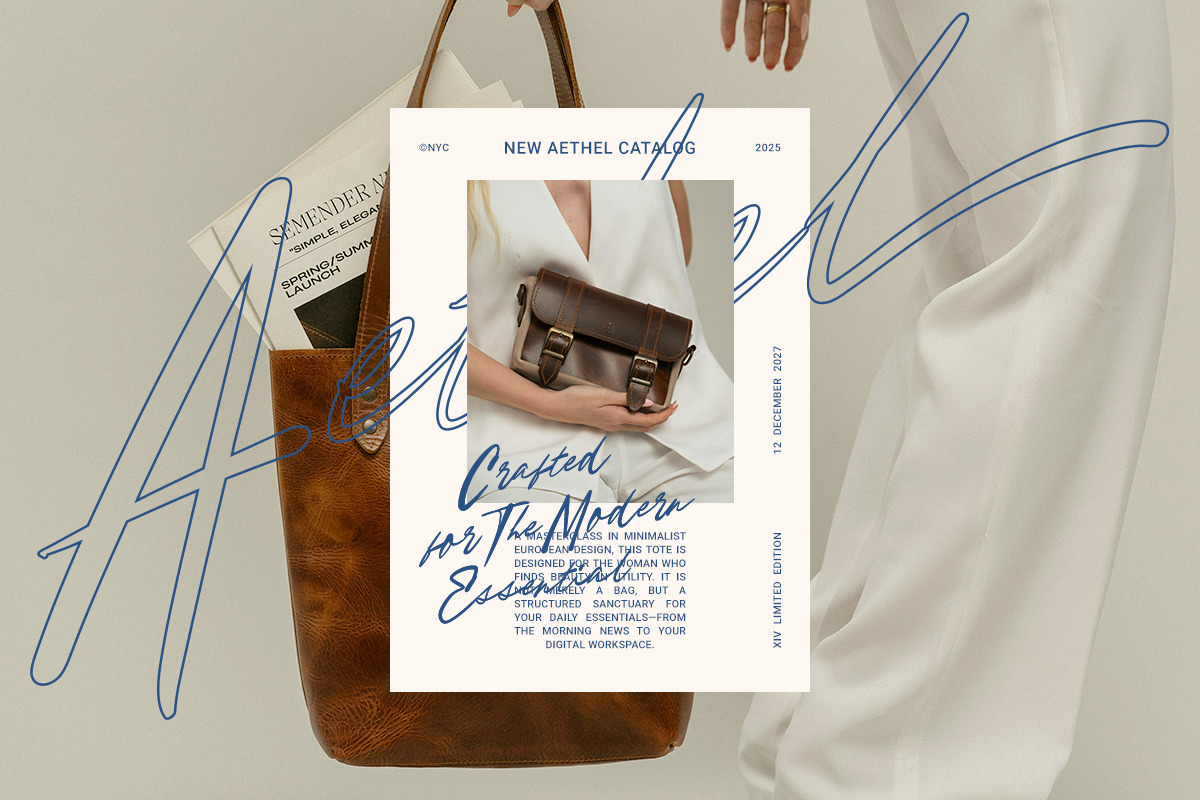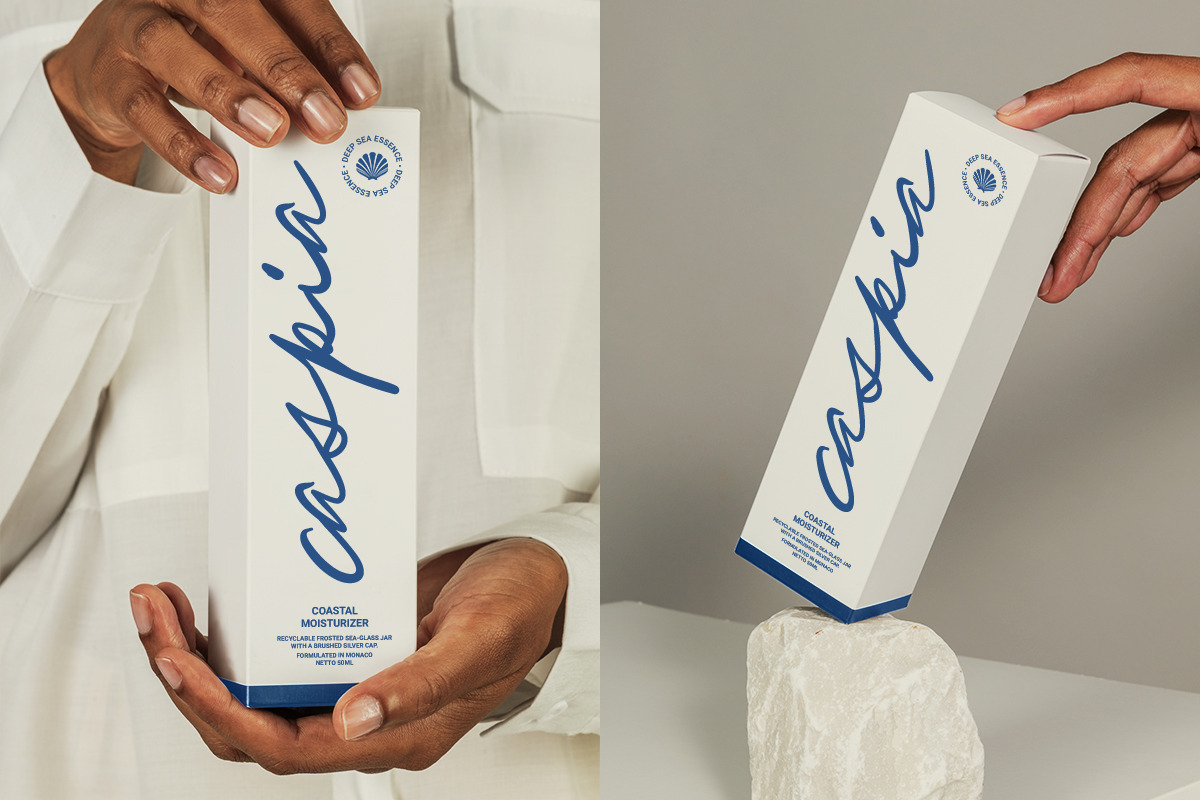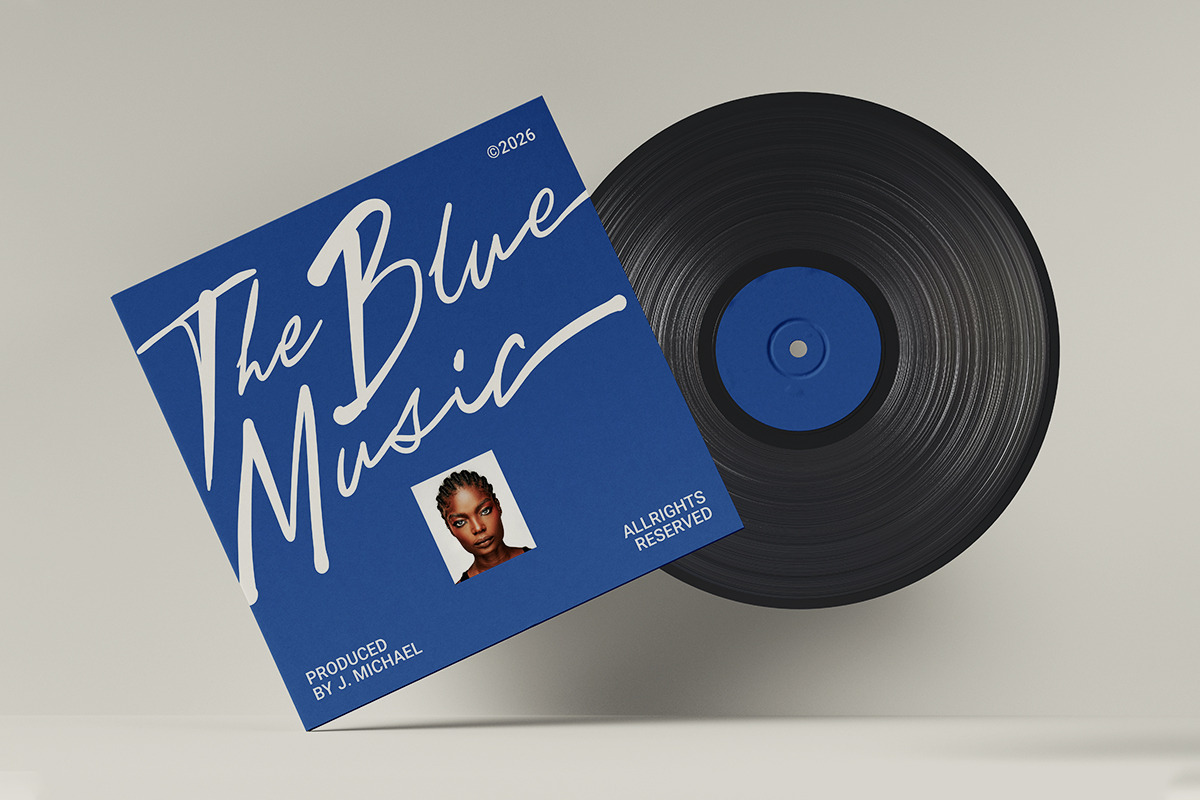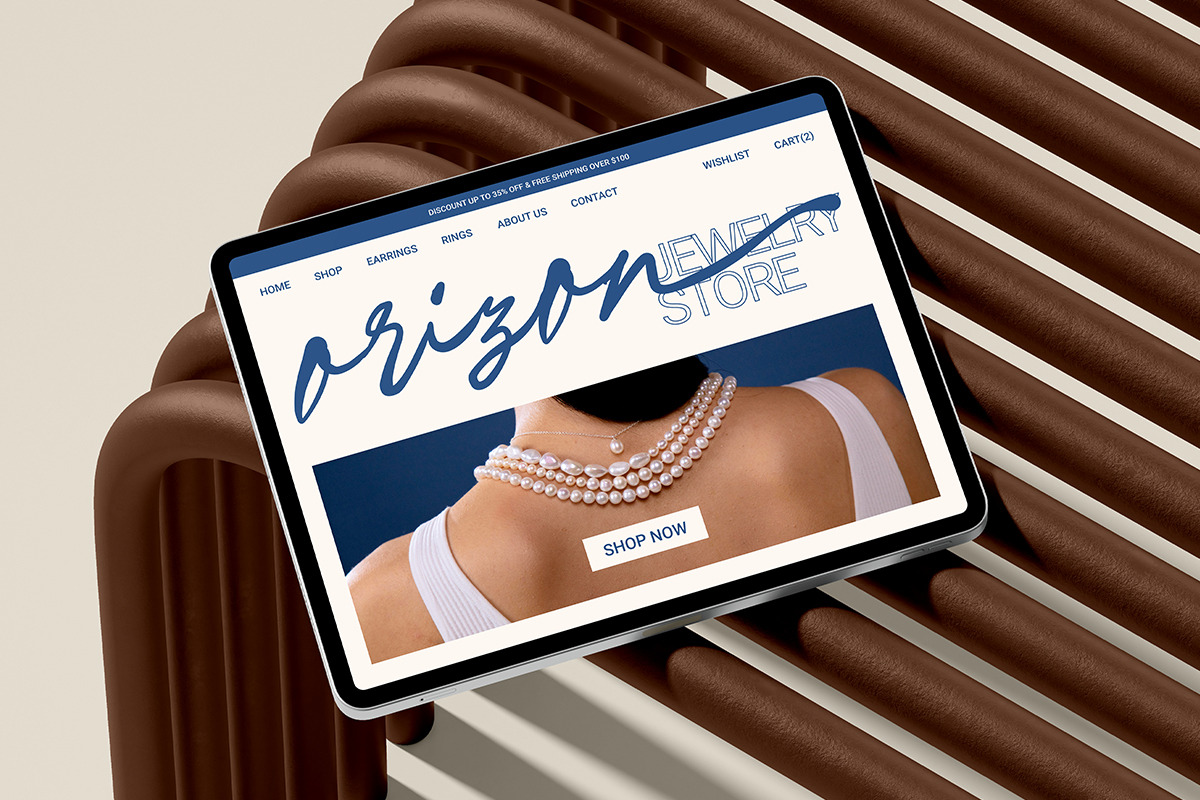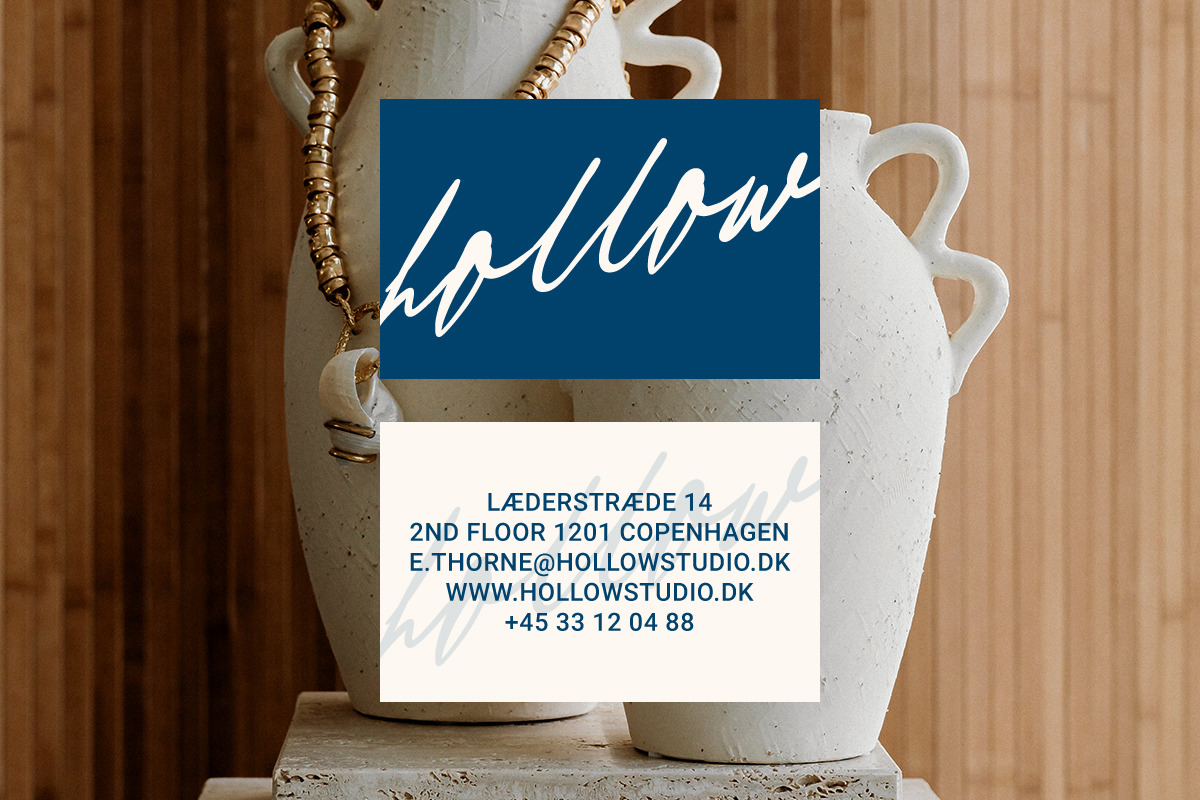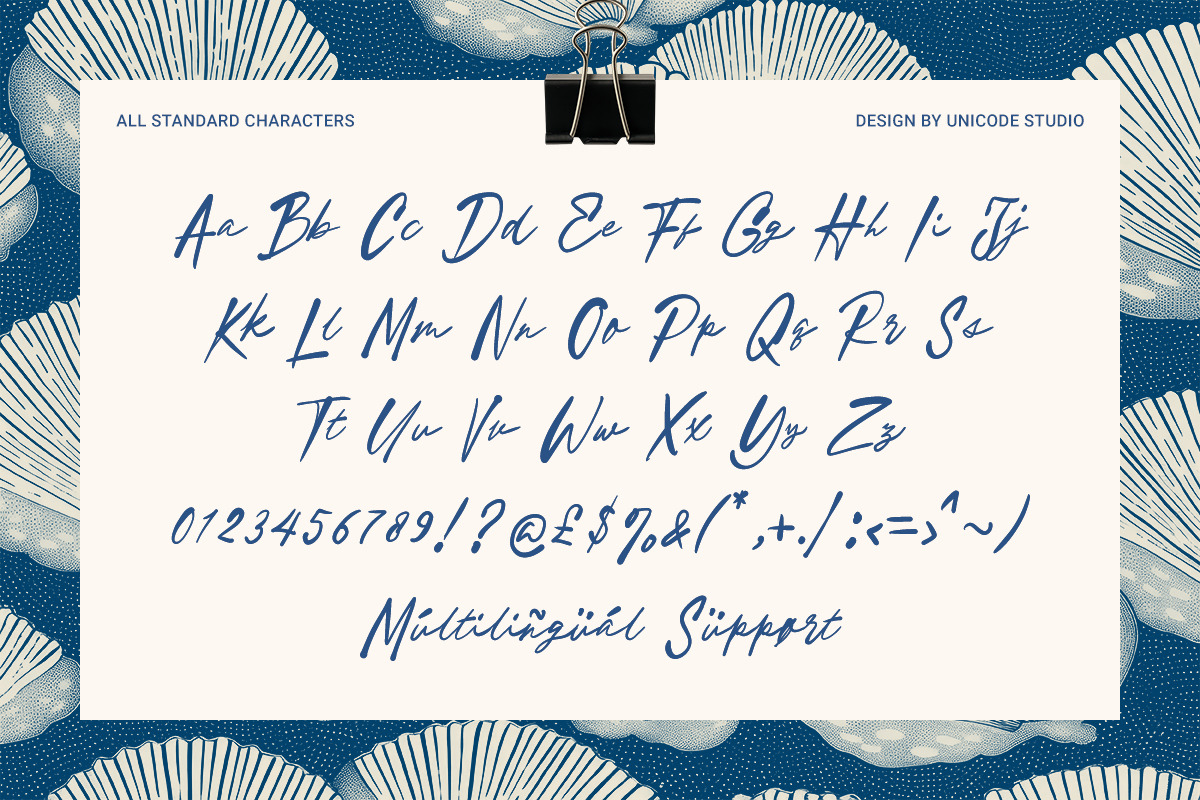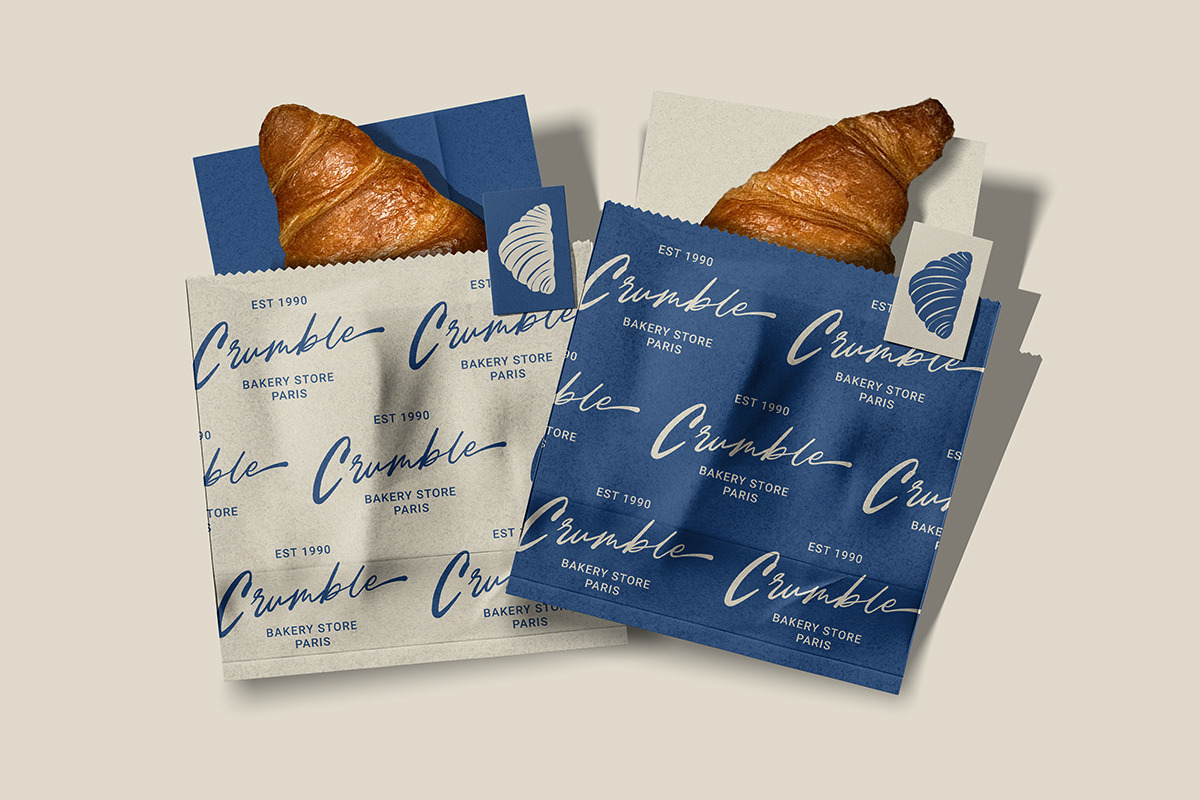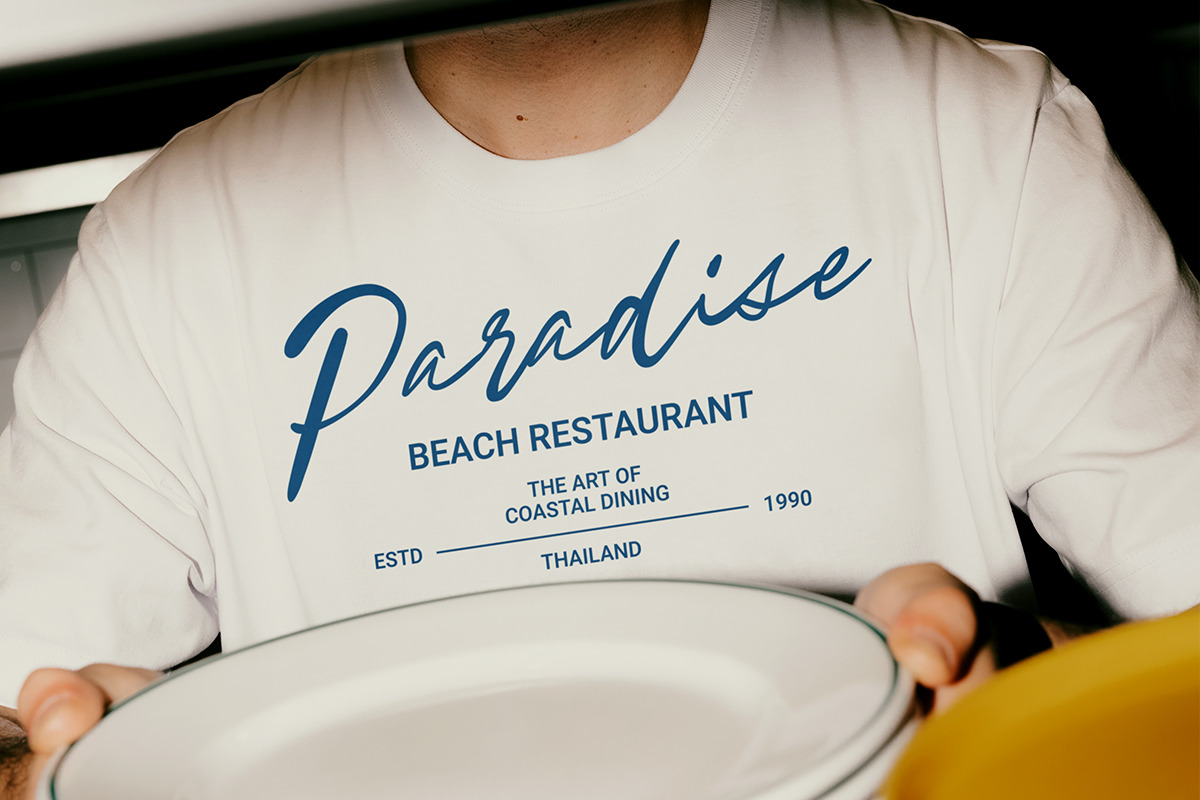
Yaenako – Elegant Handwritten Script
Yaenako is a stylish handwritten script font designed to bring elegance and personality to your creative projects. With its smooth flowing strokes and natural signature style, this font captures the authentic feel of modern handwriting, making it perfect for branding, logos, social media graphics, and luxury packaging designs.
Crafted with beautiful curves and balanced letterforms, Yaenako also includes stylish alternate characters to help you create unique and expressive typography. Whether you're designing wedding invitations, fashion branding, editorial layouts, or Instagram quotes, this font delivers a sophisticated and modern handwritten look that stands out effortlessly.
Perfect for logos, branding, wedding stationery, packaging, beauty products, fashion designs, social media posts, and modern typography projects.
- Elegant handwritten script style
- Smooth and natural lettering
- Stylish alternate characters
- Perfect for branding and logo design
- Ideal for wedding and luxury design projects